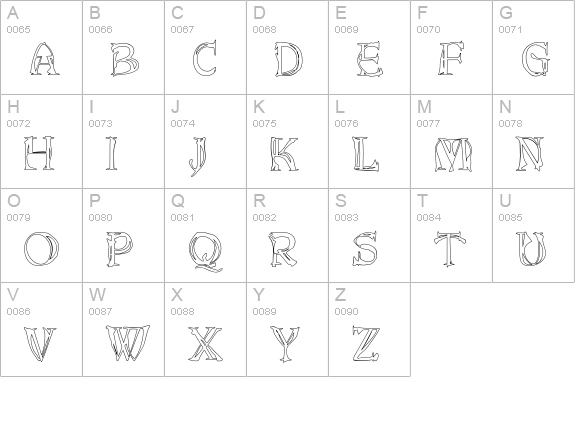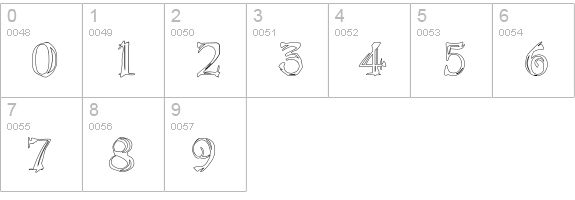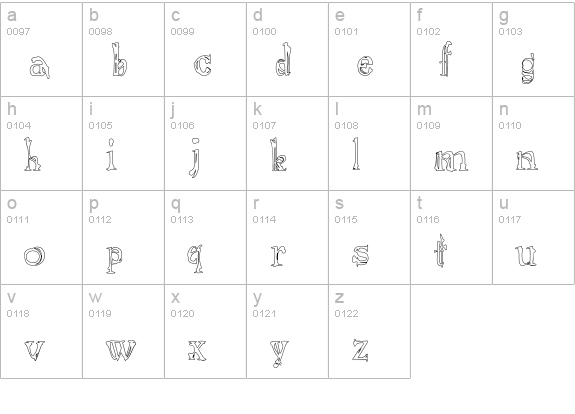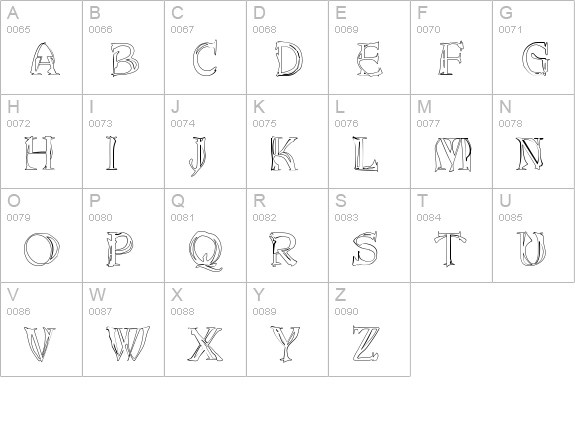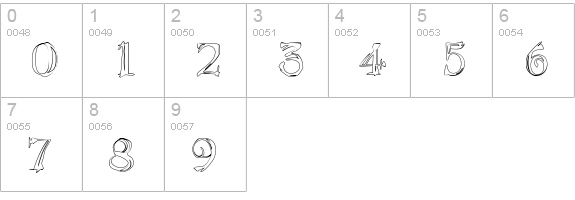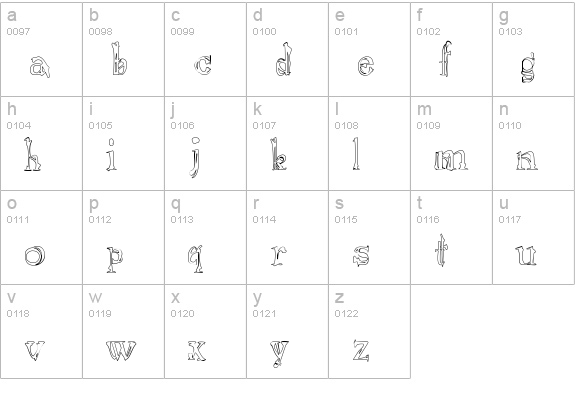
InvacuoBones Font Details
InvacuoBones font is a unique and captivating typeface that is sure to make a statement in any design project. With its bold and edgy letterforms, this font exudes a sense of strength and confidence. What sets InvacuoBones apart is its versatility. Whether you're designing a poster, a logo, or a website, this font is sure to elevate your work to new heights. Its sharp angles and clean lines give it a modern and contemporary look, while its intricate details add a touch of sophistication. But what truly sets InvacuoBones font apart is that it is completely free to download at FontsMarket.com. Yes, you read that right - this stunning font is available to you at no cost. Now you can enhance your projects without breaking the bank. Designed with utmost care and attention to detail, InvacuoBones font offers a wide range of characters, ensuring that you have all the tools you need to bring your creative vision to life. From uppercase and lowercase letters to numbers and punctuation marks, this font has it all. Whether you're a professional designer or an aspiring artist, InvacuoBones font is the perfect addition to your font collection. Its versatility, uniqueness, and most importantly, its affordability make it a must-have for anyone looking to make a lasting impression. So why wait? Head over to FontsMarket.com and download InvacuoBones font today. Join the countless designers who have already fallen in love with this incredible font and let your creativity soar to new heights.